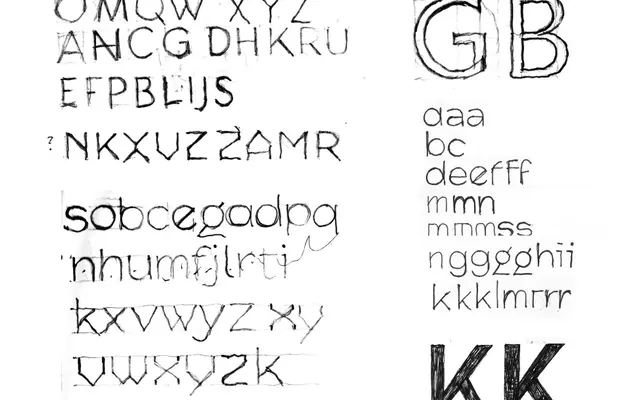
A geometric sans in the Kabel and Avant Garde tradition, distinguished by its sharp diagonal stroke in 'e', 'g' and 'y' and pointed apexes.
Built from square, circle and triangle, Capri draws on constructivist principles and was developed through drawing rather than calligraphic tradition. Its most distinctive feature is the diagonal cut on characters such as 'e', 'g' and 'y', which gives the family a crisp, puristic quality well suited to fashion and beauty advertising. The family comprises Light, Regular and Bold with a single Italic, covering western, eastern and central European Latin character sets.
Capri is explicitly positioned in the tradition of Kabel and Avant Garde, built from basic geometric forms — square, circle and triangle — with vertically cut stroke endings and pointed apexes, placing it firmly in the geometric sans category.